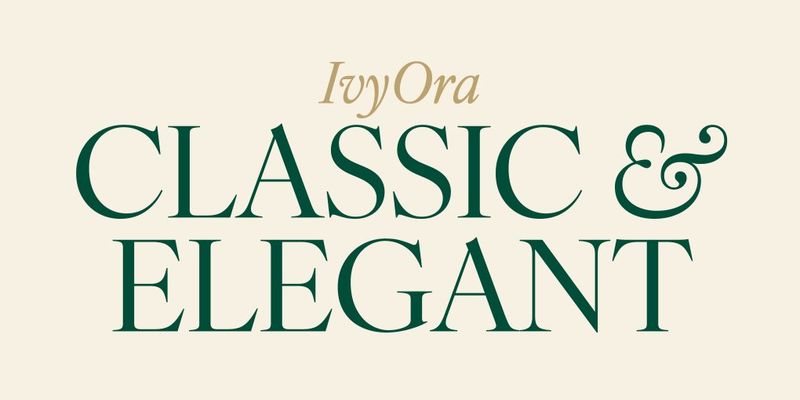
IvyOra Font Free Download is a refined serif typeface that exudes sophistication, elegance, and a quiet sense of luxury. With its high contrast strokes, graceful curves, and timeless proportions, IvyOra is an ideal choice for editorial design, high-end branding, book covers, fashion campaigns, and elegant packaging.
Inspired by classical serif forms but updated for the modern designer, IvyOra Font Free Download brings a sense of poise and authority to any project. Its delicate serifs and generous spacing make it both stylish and readable, especially in headlines, pull quotes, and identity work that needs to make a sophisticated impression.
What makes IvyOra especially appealing is its balance—it carries the prestige of a traditional serif while feeling fresh and contemporary. Whether paired with minimalist layouts or layered into ornate compositions, it adapts beautifully while maintaining its signature elegance.
IvyOra is more than a font—it’s a design statement. Classic, confident, and artfully composed, it elevates your typography and gives your work a graceful, editorial edge.